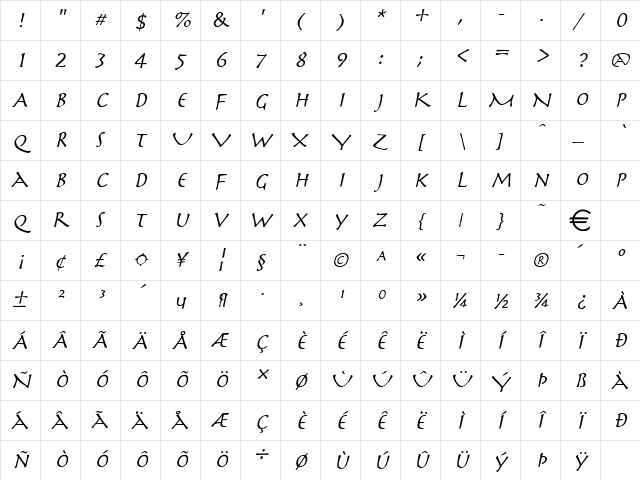
Mythology Italic
Design Context for Mythology Typeface
Mythology is a composed and adaptable typeface that performs quietly and consistently across a wide range of design contexts. Its italic angle brings a sense of urgency and motion to the letterforms.
Pro Tip: Try Mythology for annotation and caption copy alongside an upright companion — the contrast in angle creates a dynamic but ordered typographic system.